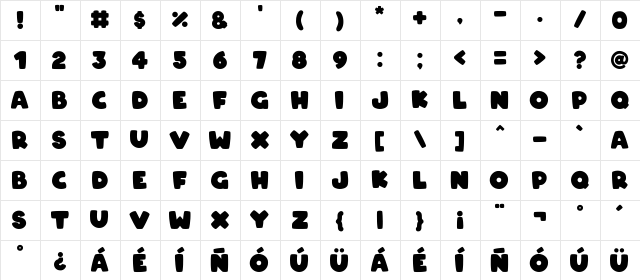
ARCO Typography Regular
Design Context for ARCO Typography
ARCO Typography is a composed and adaptable typeface that performs quietly and consistently across a wide range of design contexts.